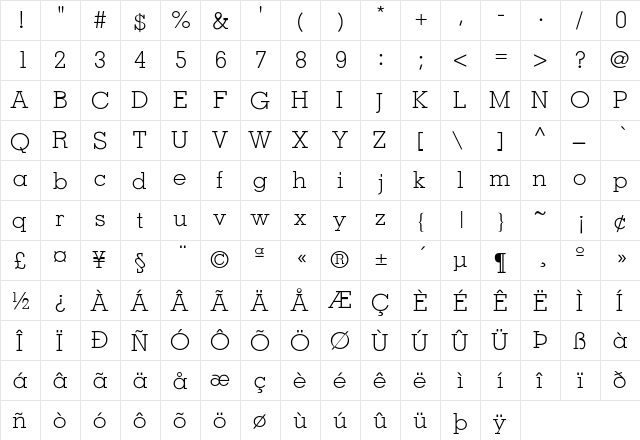
Louisville-Light Regular
Design Context for Louisville-Light Typeface
Louisville-Light is a composed and adaptable typeface that performs quietly and consistently across a wide range of design contexts. Its slender proportions lend an understated elegance to any composition.